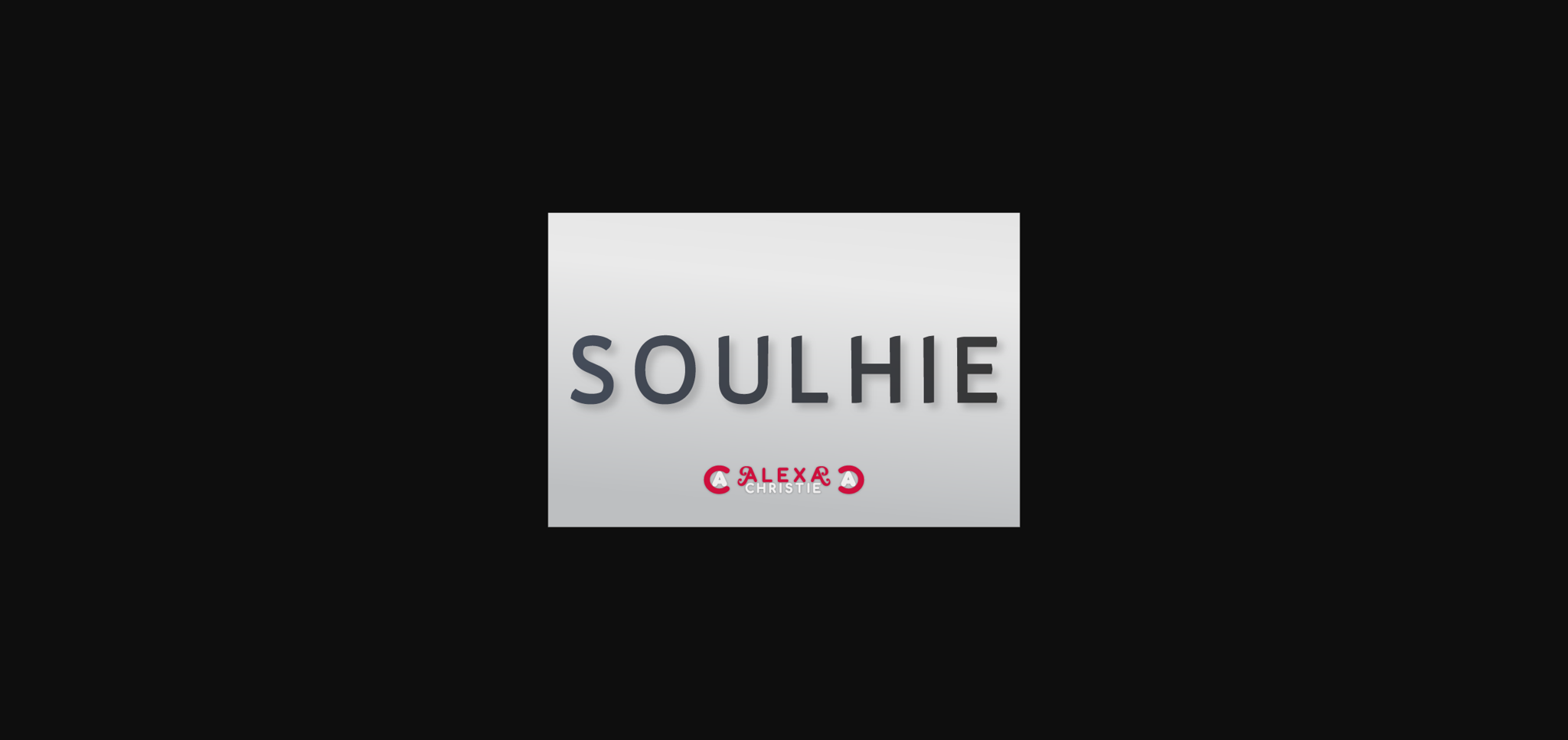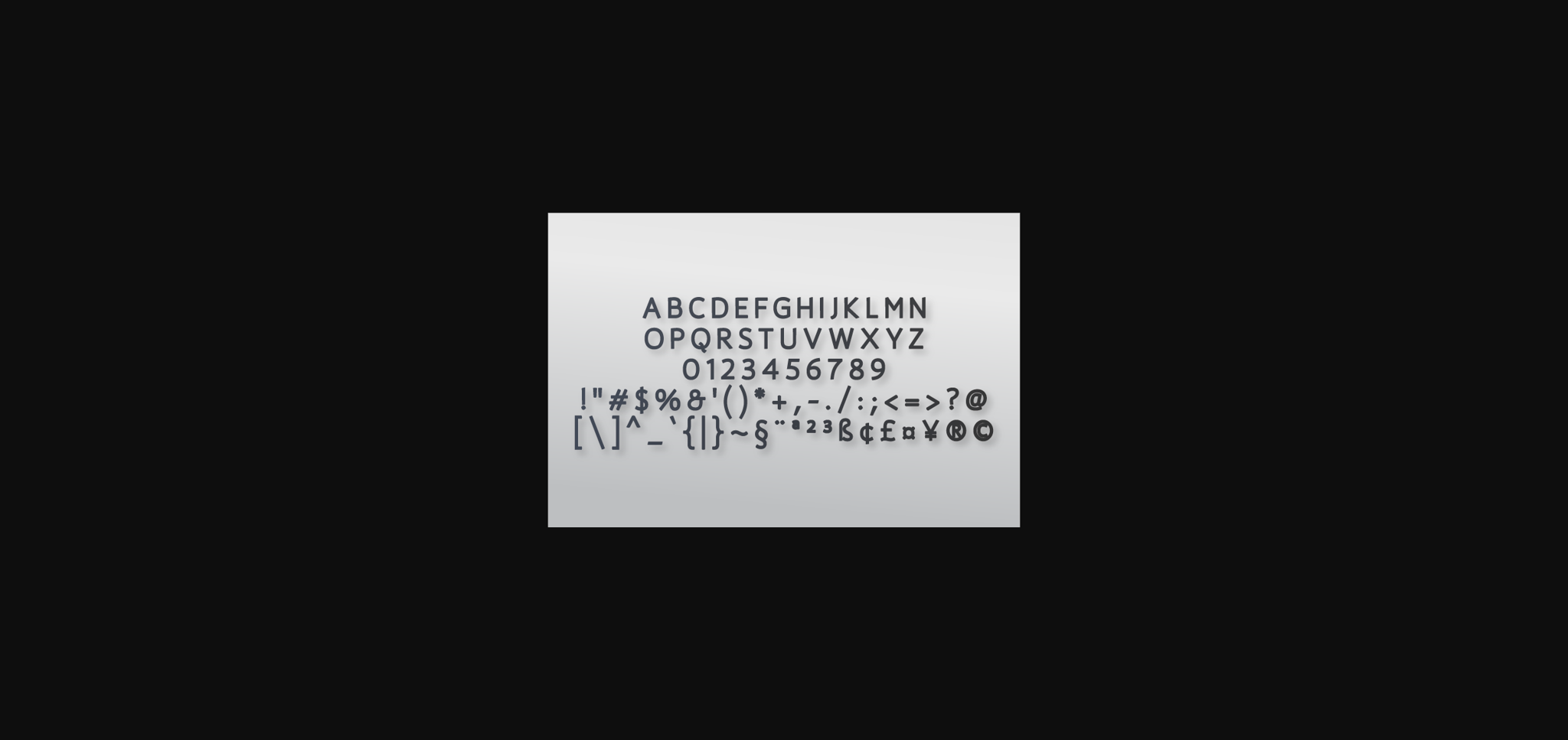
HomeSans Serif FontsSoulhie Font Sans Serif Fonts Soulhie Font FacebookXPinterestWhatsApp 1 of 4 ... Soulhie Font Poster 2... Soulhie Font Poster 3... Soulhie Font Poster 4... About Soulhie Font Soulhie is a fancy, contemporary sans serif font. It will complement any design need perfectly with its perfectly balanced mix of the smooth and sharp! DOWNLOAD NOW People also explored Golden Hooge Font Sebitang Font Simplesky Font Speak English Font Sylvia Dalman Font Jelita Font Solidar – Script Font Family Geotica Goodbye Amsterdam Font 324 0 TagsSoulhieSoulhie Font Previous articleLutzou FontNext articleRhefa Font LEAVE A REPLY Cancel reply Comment: Please enter your comment! Name:* Please enter your name here Email:* You have entered an incorrect email address! Please enter your email address here Website: Save my name, email, and website in this browser for the next time I comment. Personal Use Free Crayones Personal Use Free Read more about this font Autines Personal Use Free Read more about this font Gupis Personal Use Free Read more about this font Eric”s Personal Use Free Read more about this font BLOG Free Fonts Risk: Why Free Fonts Can Be Dangerous for Designers Free Fonts Risk: Why Free Fonts Can Be Dangerous for Designers Using free fonts is a common practice in web and graphic design. However, the... Free vs Paid Fonts: Why Investing in Premium Fonts Is Worth It Modern Sans-Serif Fonts That Brands Love in 2025 Exploring Font Trends